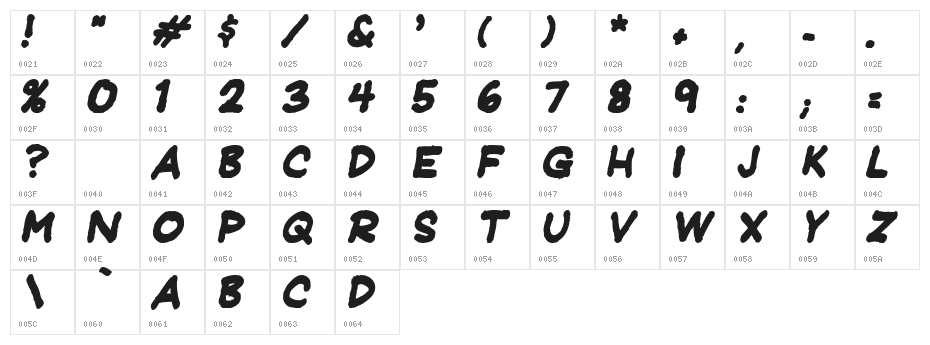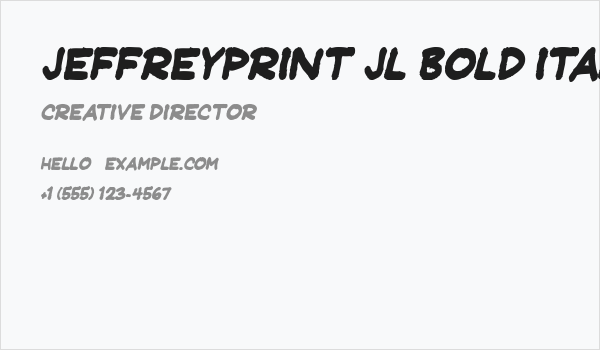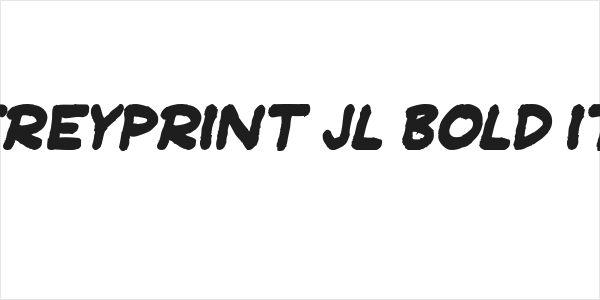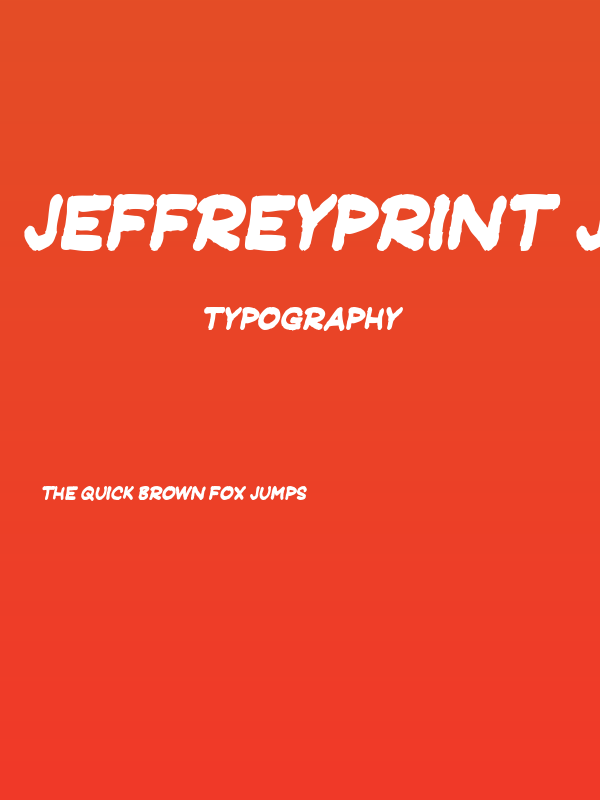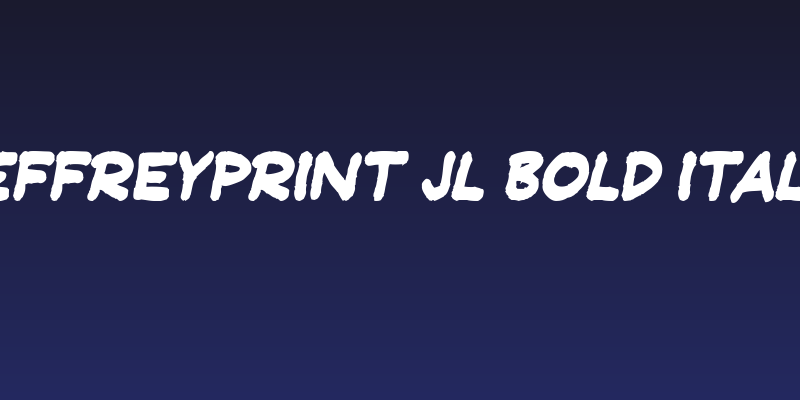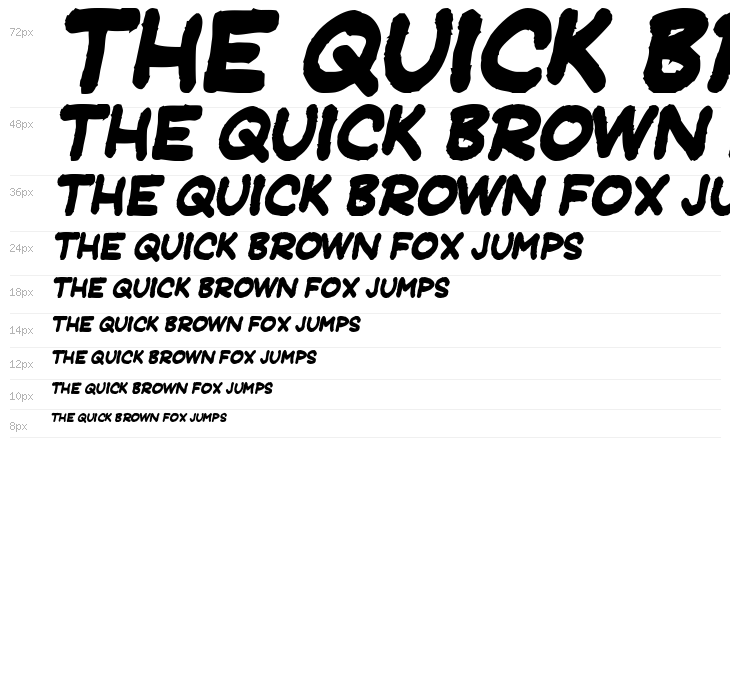
JeffreyPrint JL Bold Italic Font
JeffreyPrint JL Bold Italic Description
This font exhibits a bold and dynamic style with a strong italic slant, giving it a sense of motion and energy. The characters are thick and robust, with a slightly uneven texture that adds a handcrafted feel. The uppercase and lowercase letters maintain a consistent weight, contributing to a cohesive appearance. The numerals are equally bold, ensuring readability and impact. Special characters are designed with the same boldness, making them stand out effectively. This font's overall appearance is both striking and playful, suitable for projects that require a bold statement.